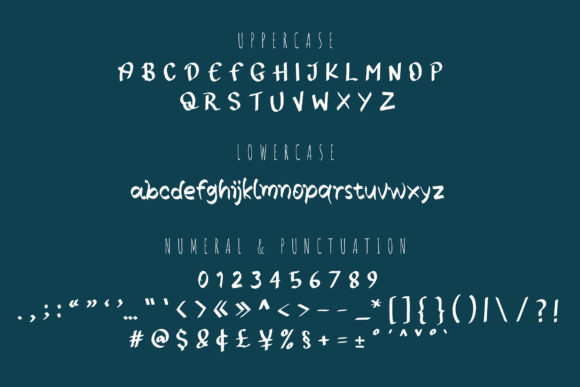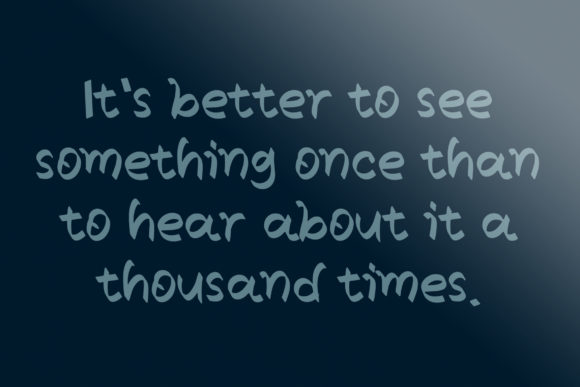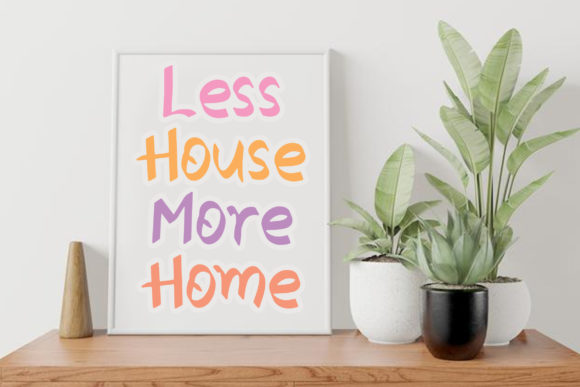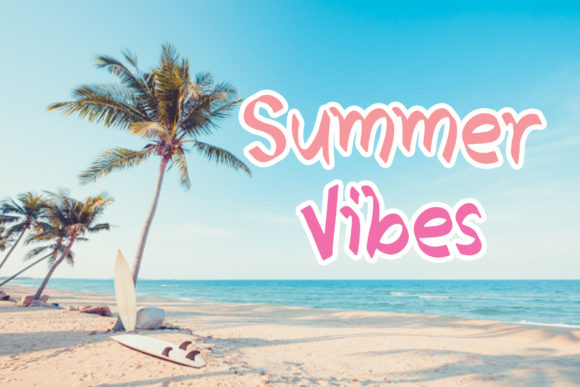
The Ultimate Guide to Go Around Font: Unleashing Creativity in Your Designs
Have you ever been in the middle of a design project, and suddenly, you’re stuck on finding the perfect font? I recall a particularly frustrating experience while working on a DIY craft project for a client. The project required a playful yet stylish font that could bring a unique charm to the design. After scouring through numerous font libraries, I stumbled upon Go Around Font. It was love at first sight! 💕
Go Around Font is a quirky, cool, and playful display font that can instantly elevate your creative projects. Whether you’re a designer looking for fonts for Instagram or a crafter seeking calligraphy scripts for DIY projects, this font is sure to turn any idea into a true piece of art! 🎨
An Honest Review of Go Around Font
What I Love About Go Around Font ✨
- Unique and playful design that adds a touch of whimsy to any project 🎉
- Excellent for display purposes, such as titles, headings, and social media posts 📱
- Supports OpenType features, allowing for a wide range of creative possibilities 🌟
- Easy to read and understand, making it perfect for crafts and DIY projects 📚
- May not be suitable for body text or lengthy content due to its display nature 📝
- Some users may find the font a bit too playful for formal or professional projects ⚠️
The Backstory of Go Around Font
Go Around Font was designed with the intention of creating a playful, yet elegant font that could bring a touch of whimsy to any design project. The designer aimed to create a font that would be perfect for creative hobbyists, designers, and crafters alike. With its unique design and OpenType features, Go Around Font has become a popular choice among designers and crafters worldwide 🌎
| Font Name | Go Around Font |
| Author | dapiyupi |
Q: What is Go Around Font best used for? 🤔
A: Go Around Font is best used for display purposes, such as titles, headings, and social media posts. It’s perfect for creative projects, DIY crafts, and design projects that require a playful yet elegant touch 🎨
Q: Is Go Around Font suitable for body text? 📝
A: No, Go Around Font is not suitable for body text or lengthy content. Its display nature makes it more suitable for short, attention-grabbing text 📊
Q: Is Go Around Font easy to read? 📚
A: Yes, Go Around Font is easy to read and understand, making it perfect for crafts and DIY projects. However, its playful nature may not be suitable for formal or professional projects ⚠️